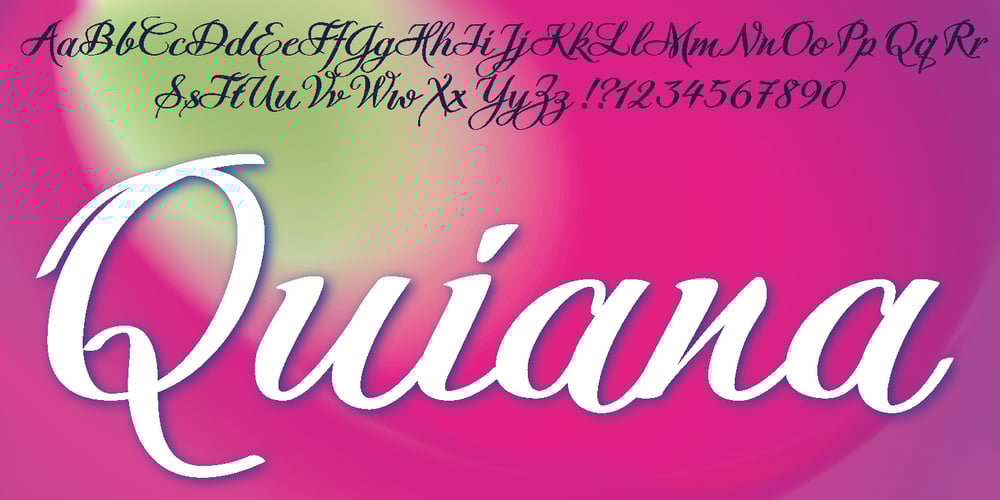
Quiana
Quiana font
Quiana Font Family was designed by Gert Wiescher and published by Autographis. Quiana contains 1 styles and family package options. Quiana is a very elegant joining Script that has – because of its high and open lowercase letters – excellent readability. It has a slim twin called Quirina.